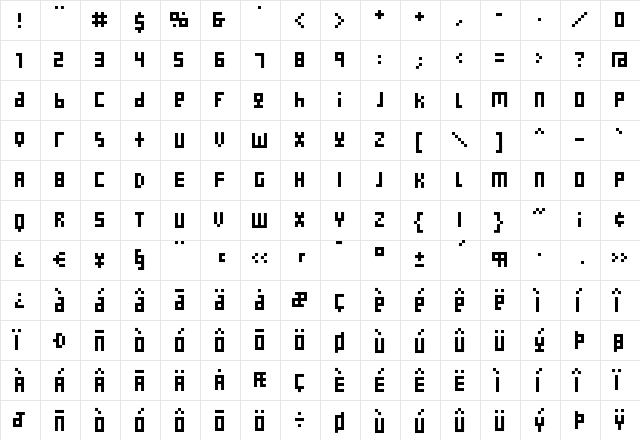
Nanoscopics Alphabet Font Preview
Nanoscopics Alphabet
Design Context for Nanoscopics Typeface
Nanoscopics takes a measured approach to typography — its balanced proportions and neutral character make it a reliable workhorse for both digital and print work.